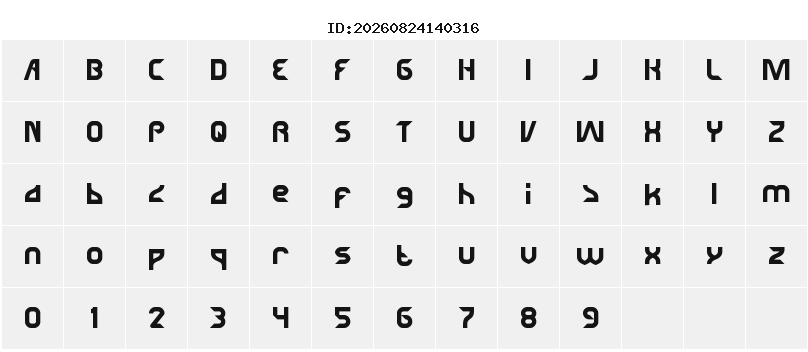
SUPERHERO Preview
• Font Name: SUPERHERO
• Full Font Name: SUPERHERO
About SUPERHERO.ttf
SUPERHERO.ttf is a modern, elegant sans-serif font designed for ultimate readability and visual harmony. Perfect for branding, headlines, web design, and print materials.